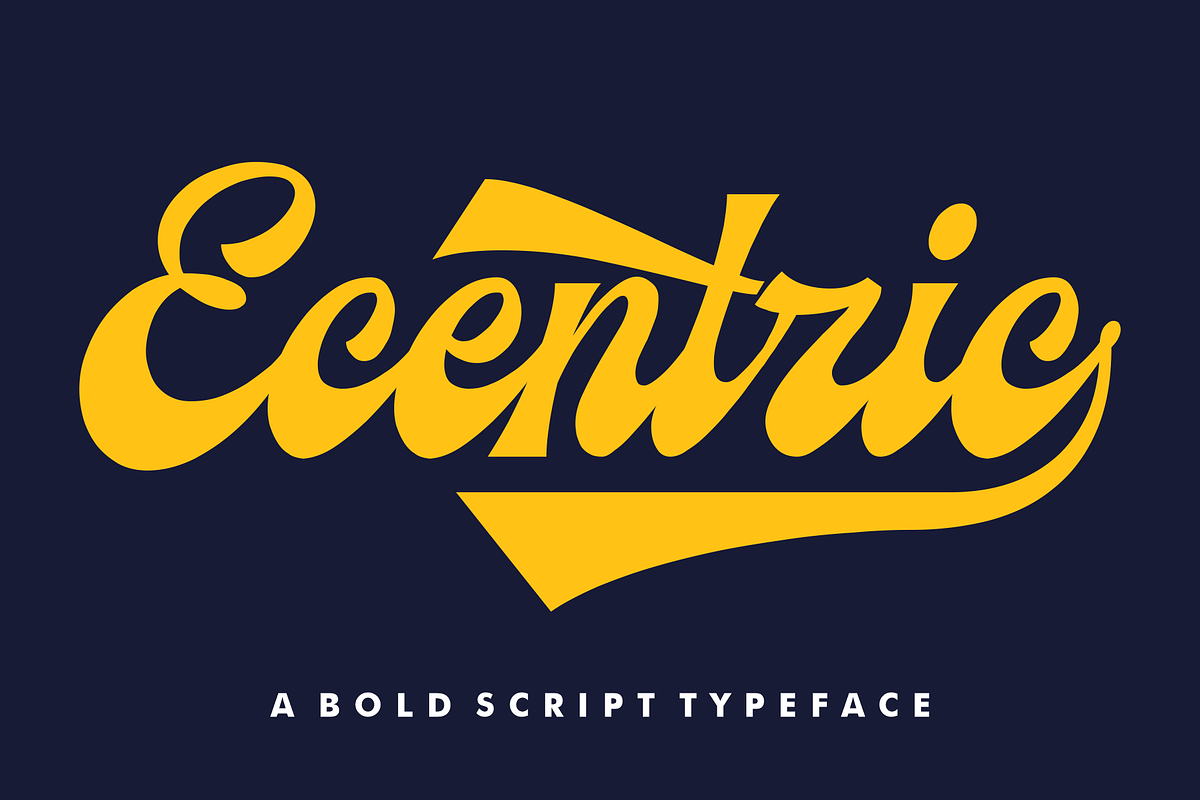
Ecentric Retro Fonts Free Download
Please note, to use this font for commercial purposes, you must purchase the full version. Ecentric Retro Fonts is a bold and playful font collection inspired by vintage designs, bringing a unique, nostalgic feel to your projects. Perfect for logos, posters, branding, and creative campaigns, this font captures the essence of retro aesthetics with its fun and dynamic letterforms. Whether you're designing for a retro brand, a vintage event, or a modern throwback project, Ecentric Retro Fonts adds a lively and eye-catching touch to your work. Test it out and enjoy free download access for personal use. Experience the retro charm of Ecentric Retro Fonts Free Download before purchasing the commercial license. Add a vibrant, nostalgic touch to your designs with Ecentric Retro Fonts.